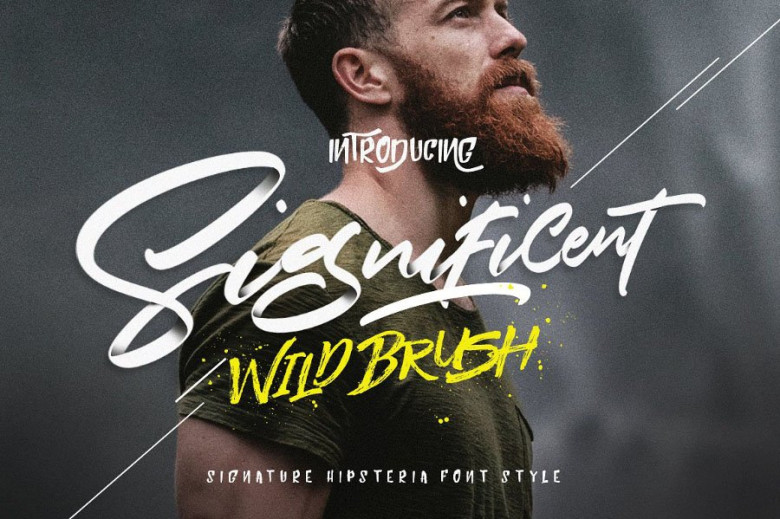
Significent Script Font
Today is the first day of the week, invite you to contemplate a new unique handwriting. Introducing Significent Script Font! Significent designed by Dirtyline Studio. Significent Font Set with 2 different style ‘script and Brush’. These two lovely fonts combination would be perfect to combine in your design. with Handmade Brush Texture style. The fonts are great for product logo,wedding card logo, clothing brand logo,Vintage design and much more.